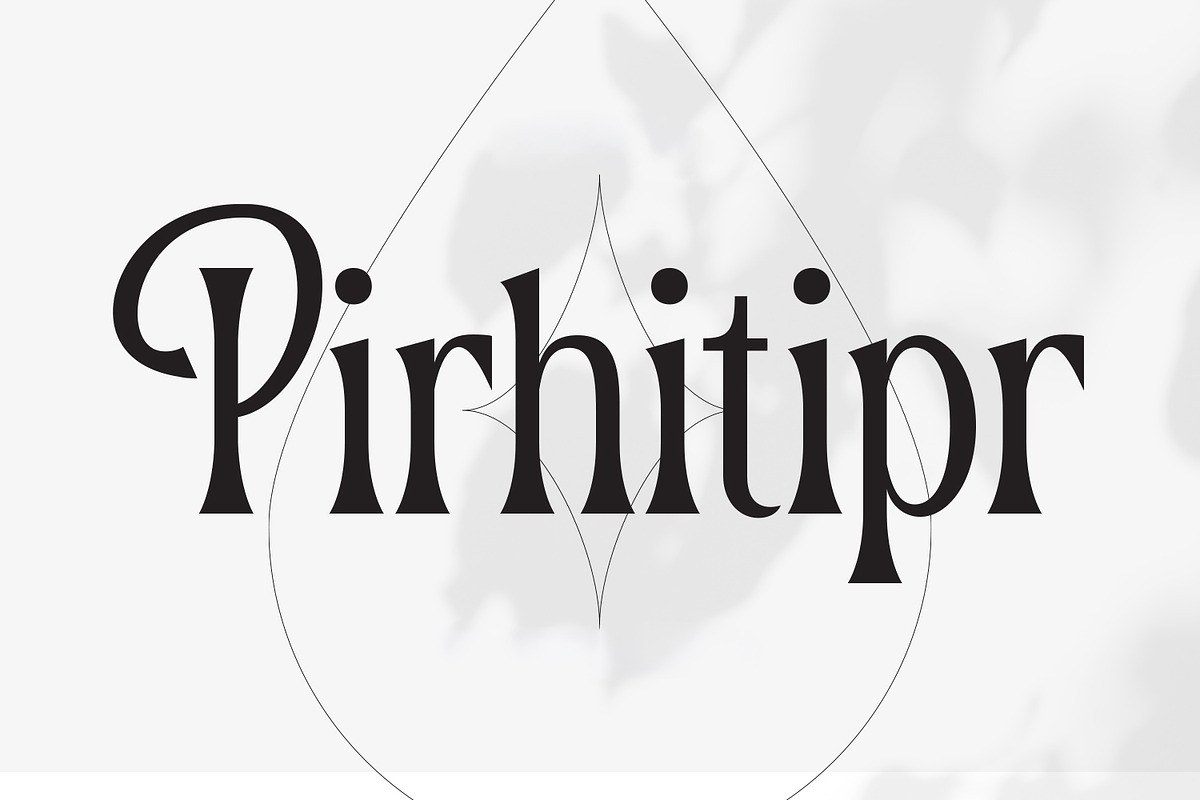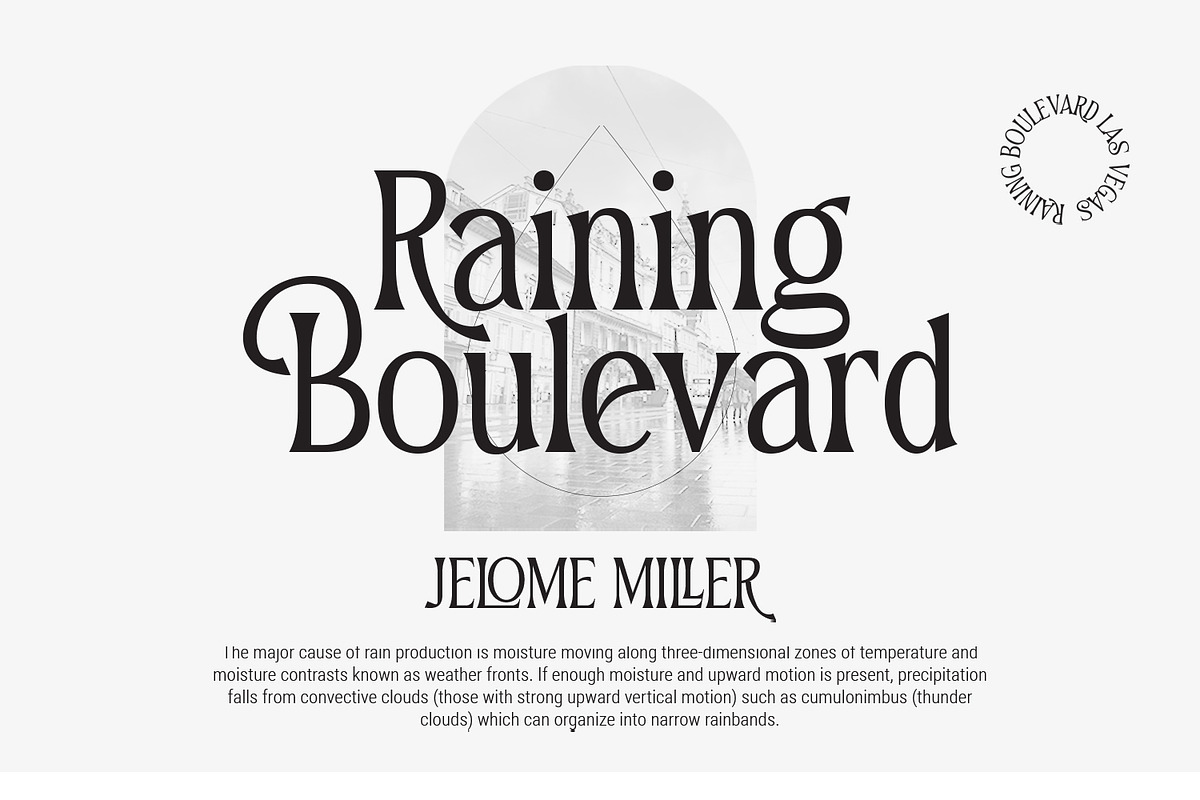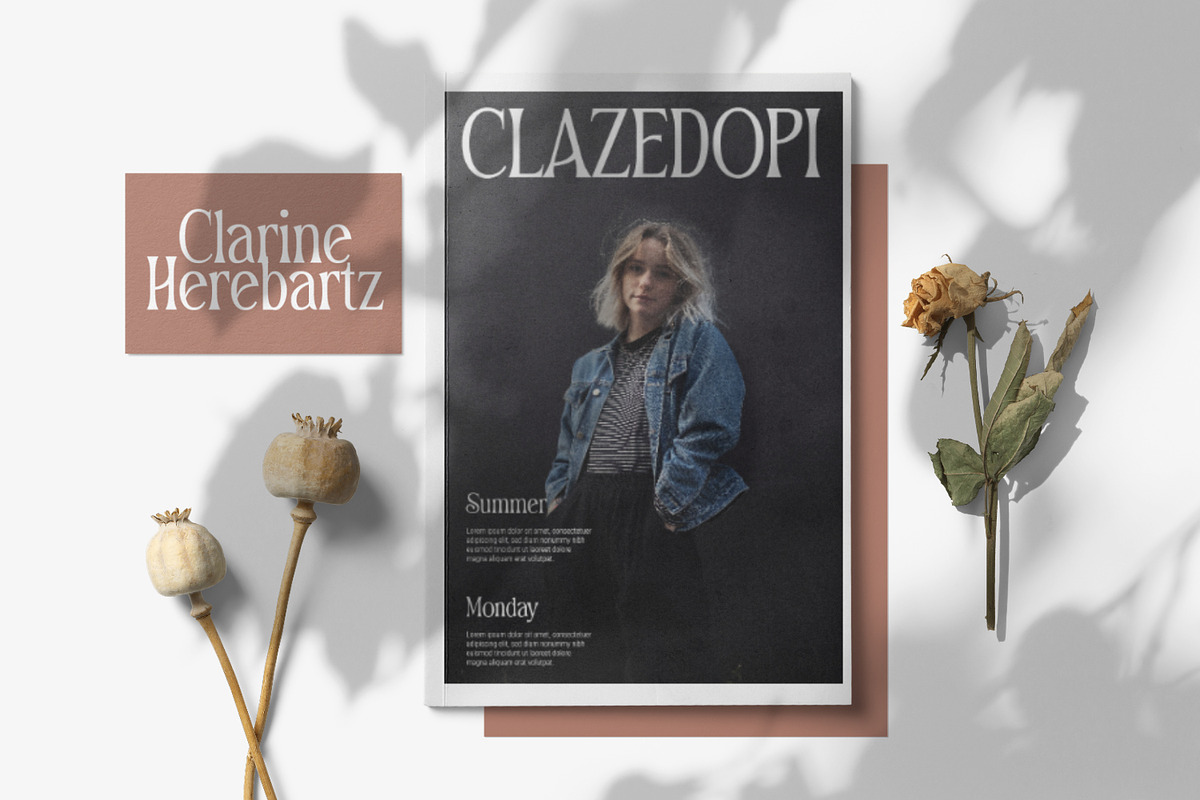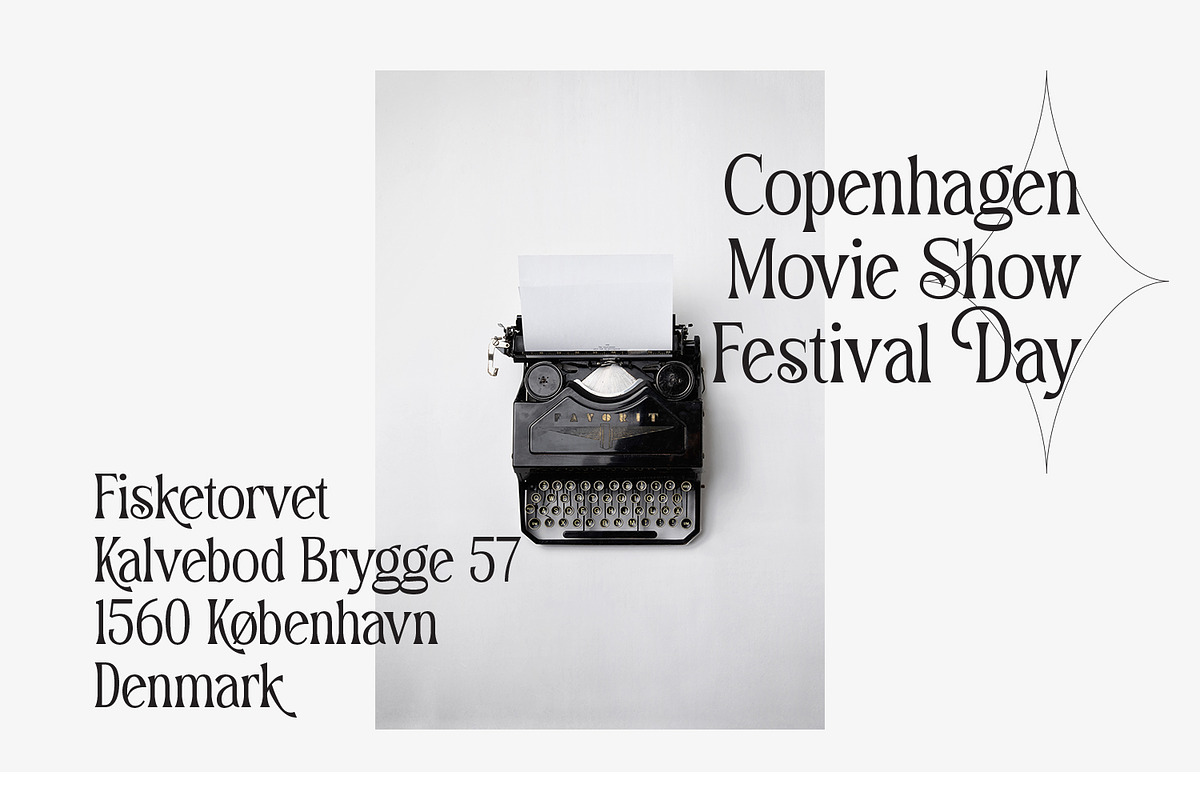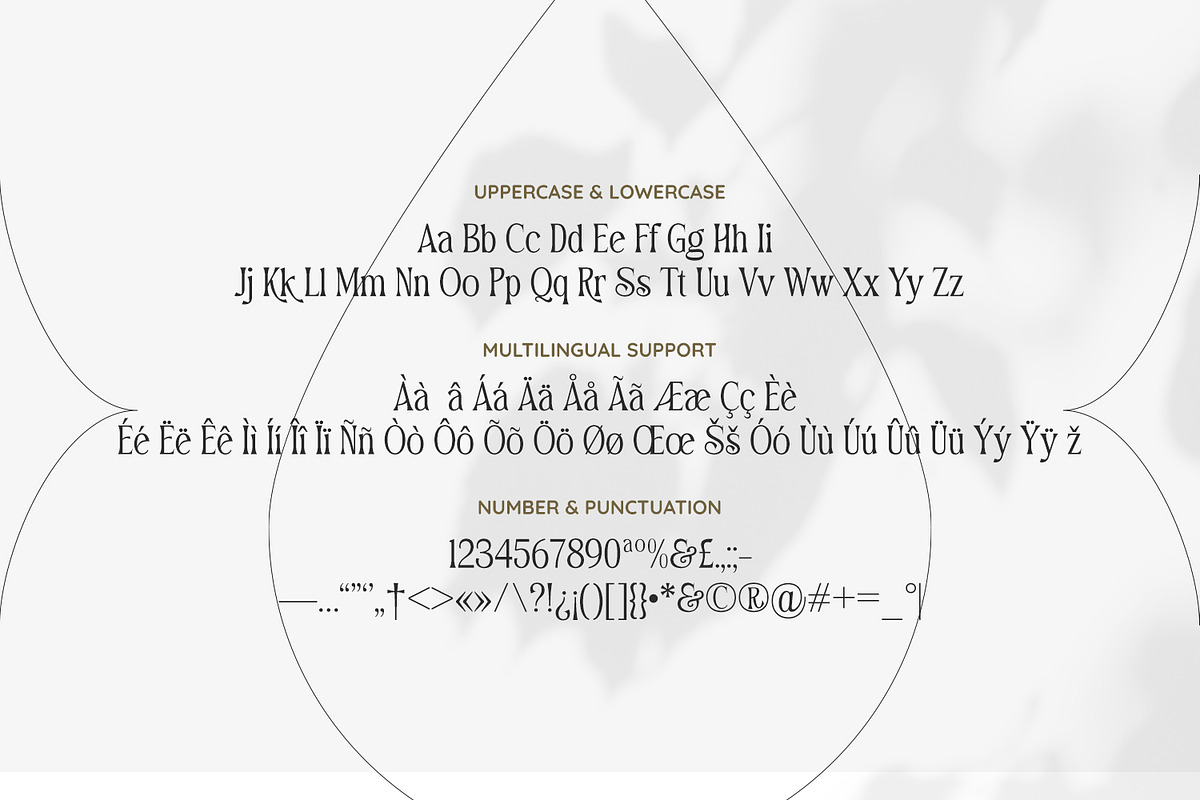
Pirhitipr - Minimalist Serif
Pirhitipr is a display serif that blends classic Didone inspired contrast with expressive ornamental details. Featuring dramatic thick to thin transitions, elongated graceful serifs, this typeface delivers a refined editorial presence with an artistic twist.
This font combine vintage romanticism with contemporary luxury, showcasing tall elegant proportions, flowing swashes.
Pirhitipr works beautifully in logos, fashion branding, beauty packaging, magazine headlines, wedding stationery, book covers, posters, and luxury inspired visual identities.
- Uppercase and Lowecase Characters.
- PUA Encoded Characters.
- Numerals and Punctuations.
- Alternates and Ligatures.
- Multilingual Support.